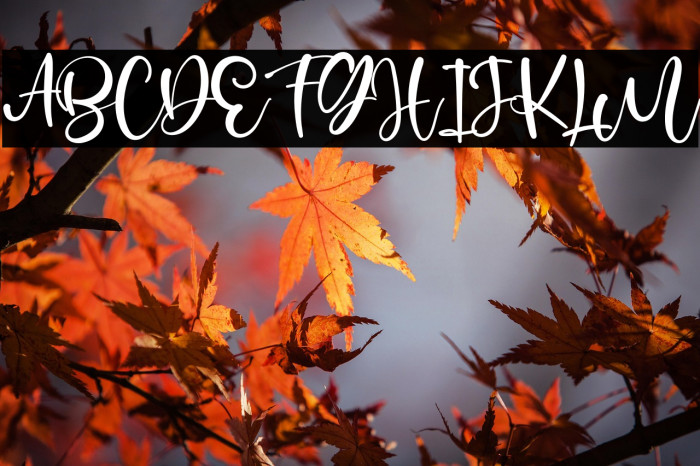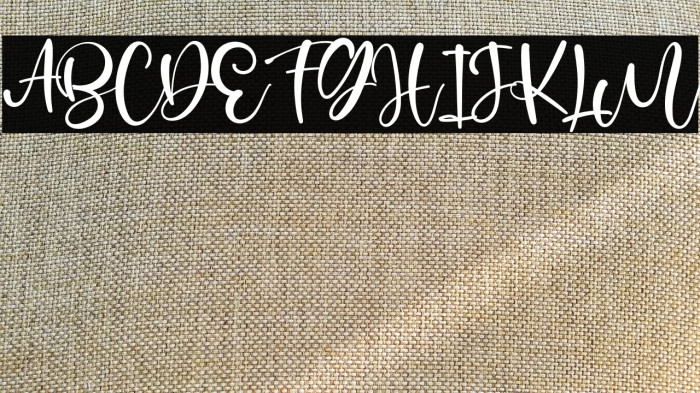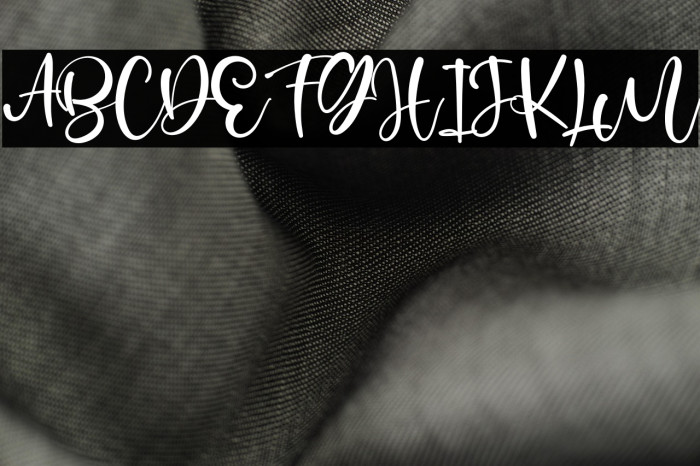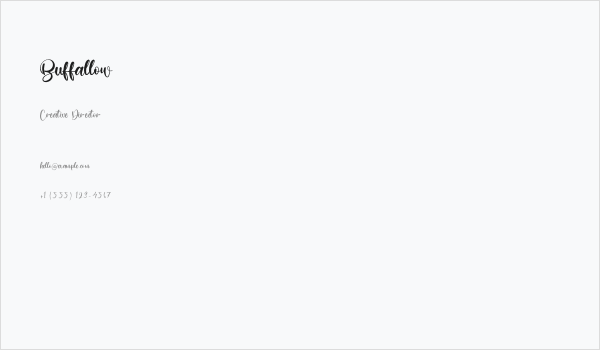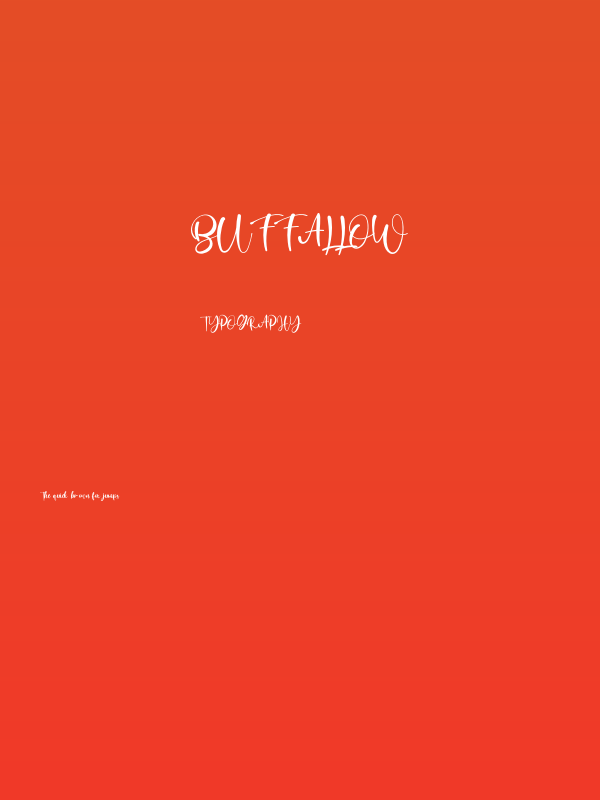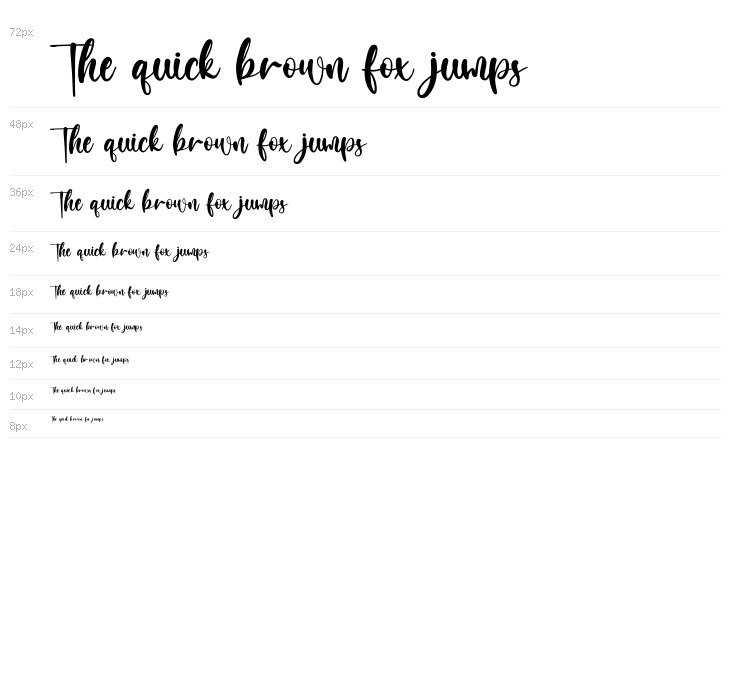
Buffallow Font
Buffallow Description
This font features a lively and flowing script style, characterized by its elegant and cursive letterforms. The uppercase letters exhibit a playful yet sophisticated flair, with smooth curves and varying stroke widths that add a dynamic touch. The lowercase letters maintain a consistent flow, enhancing readability while preserving the font's artistic nature. Numbers and special characters are designed to complement the overall aesthetic, making this font versatile for various creative applications. Its handwritten appearance evokes a sense of personal touch and warmth, suitable for projects that require a human element.
| Use Case | Logos, Headlines, Invitations |
| Proposed Projects | Ideal for wedding invitations, greeting cards, branding, and social media graphics. |